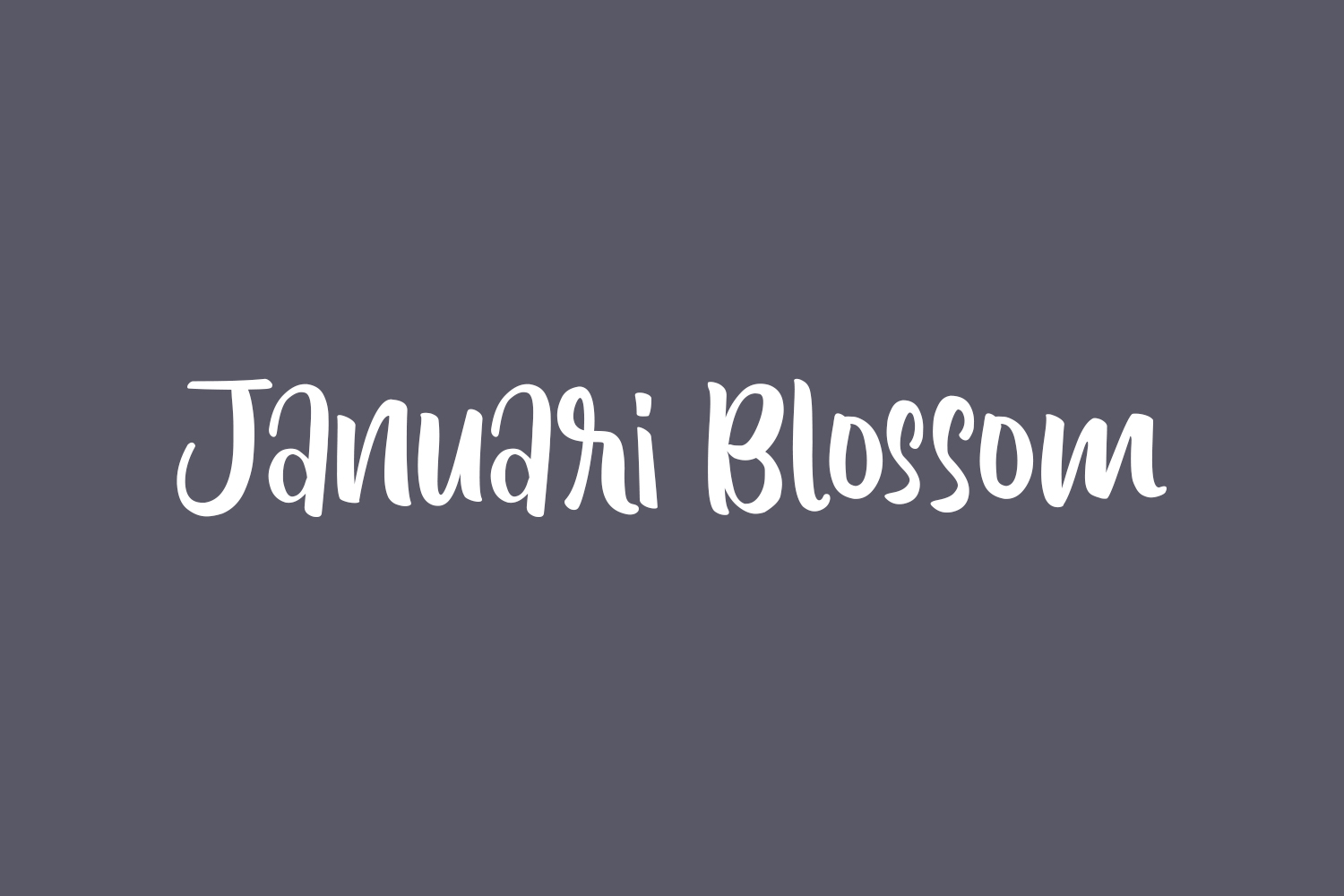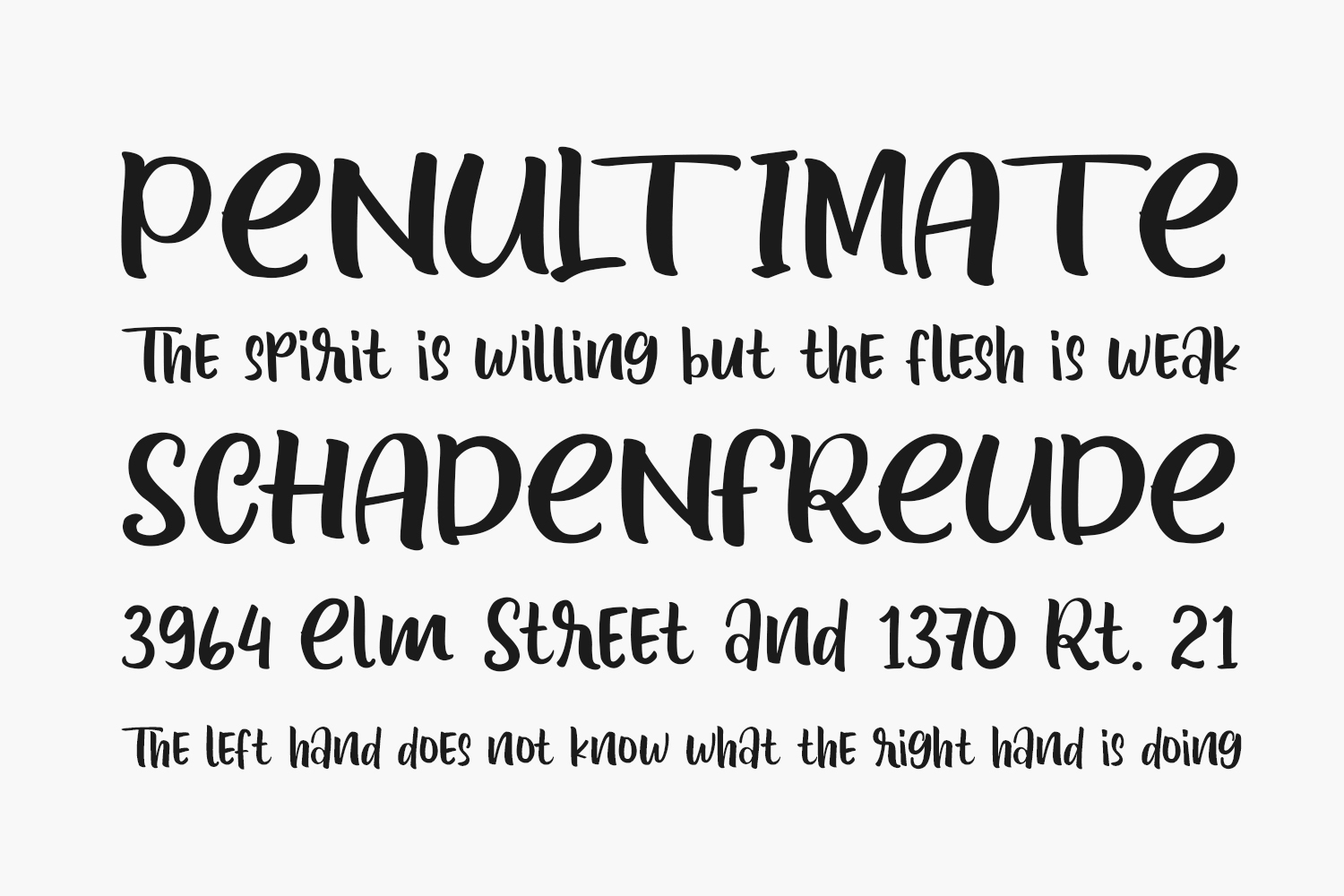
Januari Blossom Free Font is a sweet and cute display font. This font has a strong yet friendly shape, and as a result, it will match a wide range of informal designs. Create any cute, funny and stunning designs using Januari Blossom Free Font. Januari Blossom Free Font was designed by The Typerex and is free for personal use only. Please purchase the full version for commercial use.